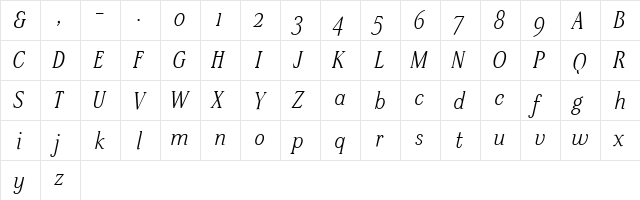
SteppITC-MediumItalic xPDF Regular Font Preview
SteppITC-MediumItalic xPDF Regular
Design Context for SteppITC-MediumItalic xPDF Typeface
SteppITC-MediumItalic xPDF takes a measured approach to typography — its balanced proportions and neutral character make it a reliable workhorse for both digital and print work. The slanted form adds forward momentum and visual energy.
Pro Tip: Use SteppITC-MediumItalic xPDF for emphasis, pull quotes, and subheadings where its slanted energy can add rhythm to the layout.